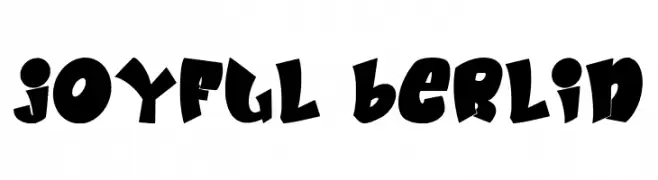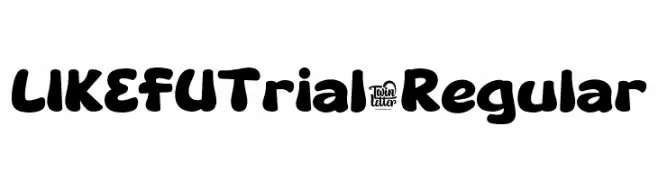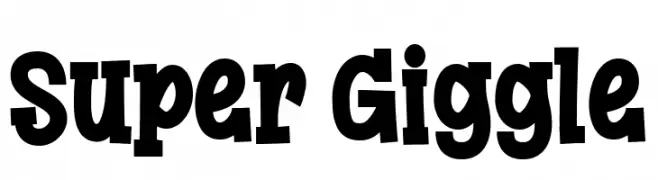
( Fonts by www.fontdiner.com )
A playful, hand-drawn font with a bold, marker-like style.
( Fonts by Anke Arnold - www.anke-art.de )
A playful, bubble-like font with a hand-drawn, 1980s-inspired style.
( Fonts by www.lars-manenschijn.nl )
A bold, playful font with thick, rounded characters and a cartoon-like appearance.
( Fonts by Marty Yawnick - www.typeadesign.com )
A playful, cartoon-like font with exaggerated, dynamic characters.
( Fonts by Steve Ferrera )
A whimsical, bold font with playful, star-like embellishments.
( Fonts by Aryel Filipe )
A playful, cartoon-like font with bold, exaggerated letterforms.
A playful, bold, hand-drawn font with a cartoon-like style.
( Fonts by Dave Kellam - Brian Stuparyk - www.eightface.com )
A bold, playful font with rounded, bubble-like characters and a cartoonish style.
( Fonts by Dave Kellam - Brian Stuparyk - www.eightface.com )
A playful, bold font with rounded, bubbly characters ideal for fun and creative projects.
( Fonts by Daniel Gauthier )
A bold, playful font with outlined, cartoon-like characters.
( Fonts by Cumberland Fontworks - http://www222.pair.com/sjohn/fonts.htm - S. John Ross )
A bold, playful font with a hand-drawn, sketch-like appearance.
( Fonts by Luis Angel Uribe - luisangeluribe.wordpress.com )
A playful, hand-drawn font with a whimsical, doodle-like style.
( Fonts by Laurent Mouy )
A playful, cartoonish font with character-like uppercase and fluid lowercase letters.
( Fonts by Rodrigo German - RASDESIGN )
A bold, block-like font with a vintage athletic feel.
( Fonts by Thomas Ledin - tomledin.com )
A playful, 3D hand-drawn font with bold, rounded characters and sketch-like texture.
( Fonts by billyargel.blogspot.com - Billy Argel )
A playful, sketch-like font with a hand-drawn appearance and textured strokes.
A playful, cloud-like font with bubbly, outlined letterforms and quirky cutouts.
A playful, cloud-like font with bold, rounded characters and three-dimensional shading.
A bold, playful font with a bubbly, cloud-like appearance.
A bold, cloud-like font with a playful and whimsical design.
A playful, cloud-like font with a shadow effect, perfect for creative designs.
( Fonts by Jeri Ingalls - littlehouse.homestead.com )
A playful, bold font with rounded, bubble-like characters and a 3D shadow effect.